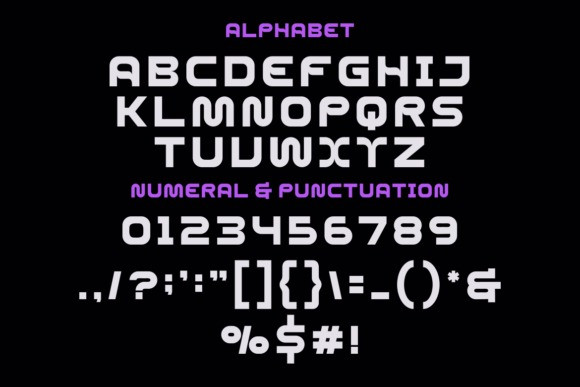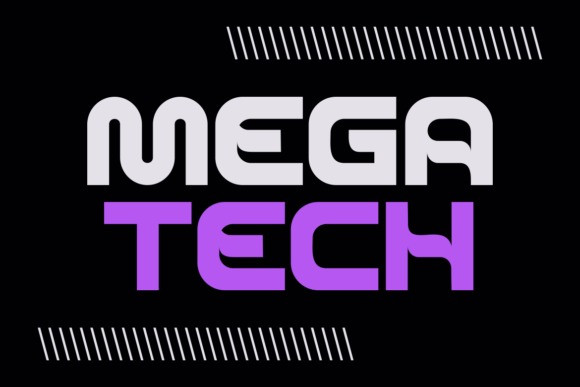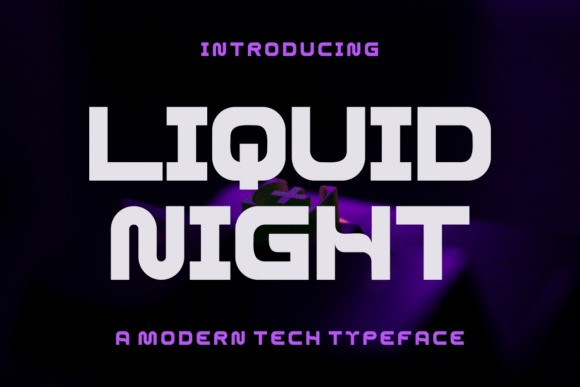
Liquid Night Font
Liquid Night Font, this bundle features strong, confident and powerful typefaces designed to work great with sports logos, club branding, apparel applications, labels and more.